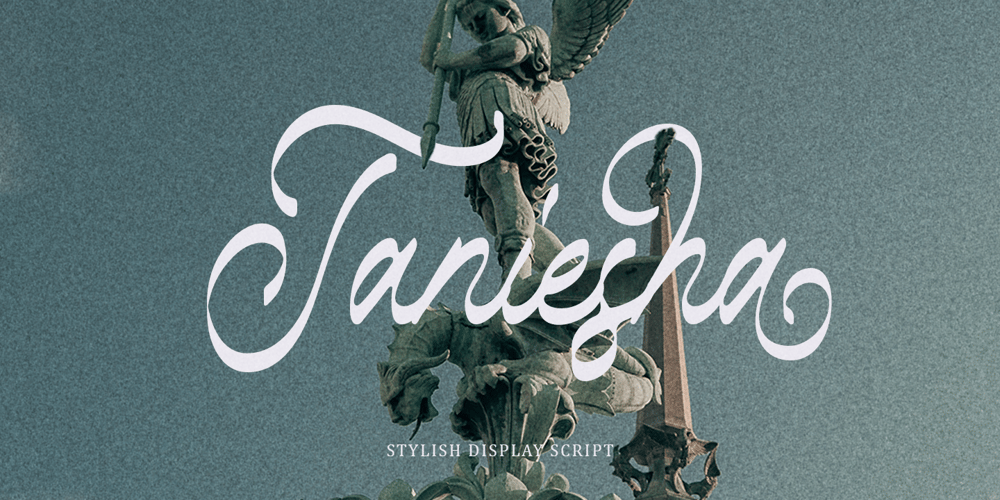
Taniesha
Taniesha font
Taniesha Font Family was designed by Gustian Agung Asprilla and published by Rillatype. Taniesha contains 1 styles and family package options. Introducing, Taniesha. Taniesha is a stylish display font with swash! This font has up to 8 alternates character setto make your design looks more eye catching! This font is perfect for logo, wedding invitation, magazines, books, packaging, stationery, novels, etc.Features : uppercase & lowercase numbers and punctuation multilingual ligatures alternates PUA encoded